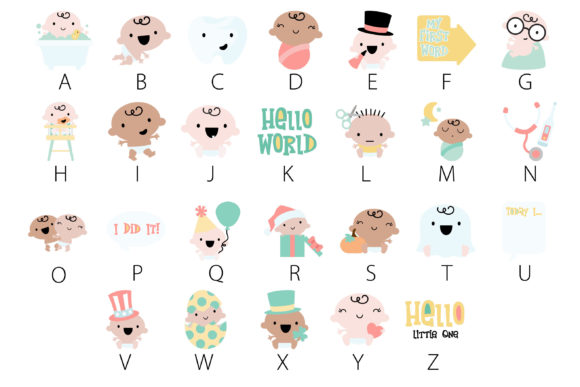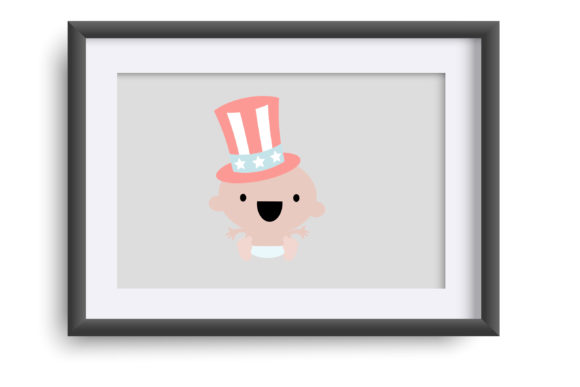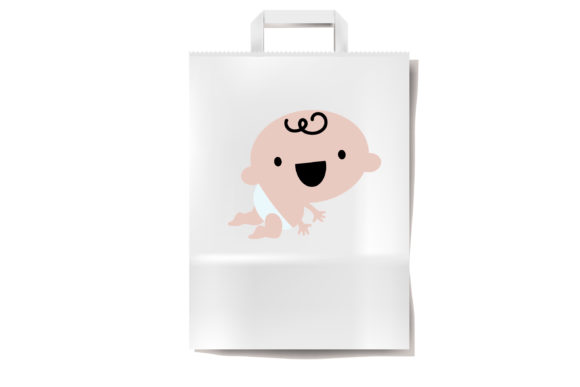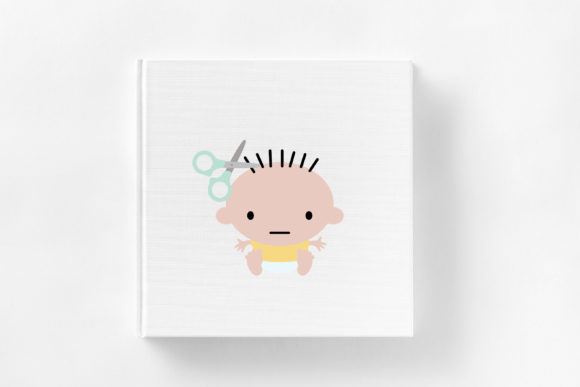
About Pipsqueaks Firsts Font
Pipsqueaks Firsts is an exciting and whimsical color font that brings a playful and quirky touch to your designs. With its unique and eye-catching letterforms, Pipsqueaks Firsts is perfect for adding a fun and distinctive element to your favorite creations.
This font offers a range of vibrant and lively colors that will make your designs stand out. Whether you’re working on children’s books, invitations, greeting cards, or any other project that requires a touch of playfulness, Pipsqueaks Firsts is a fantastic choice.
The versatility of Pipsqueaks Firsts allows it to be confidently incorporated into various design styles and themes. Its quirky appearance adds a sense of character and uniqueness to your designs, making them truly memorable.
By adding Pipsqueaks Firsts to your creative toolbox, you can explore endless possibilities and let your imagination run wild. Whether you’re designing for print or digital media, this font will bring a delightful and surprising outcome to your projects.
So go ahead and embrace the charm of Pipsqueaks Firsts. Add it to your favorite creations and let yourself be amazed by the playful and quirky results it generates. Its cool, useful, and quirky nature will surely bring a smile to your face and captivate your audience.